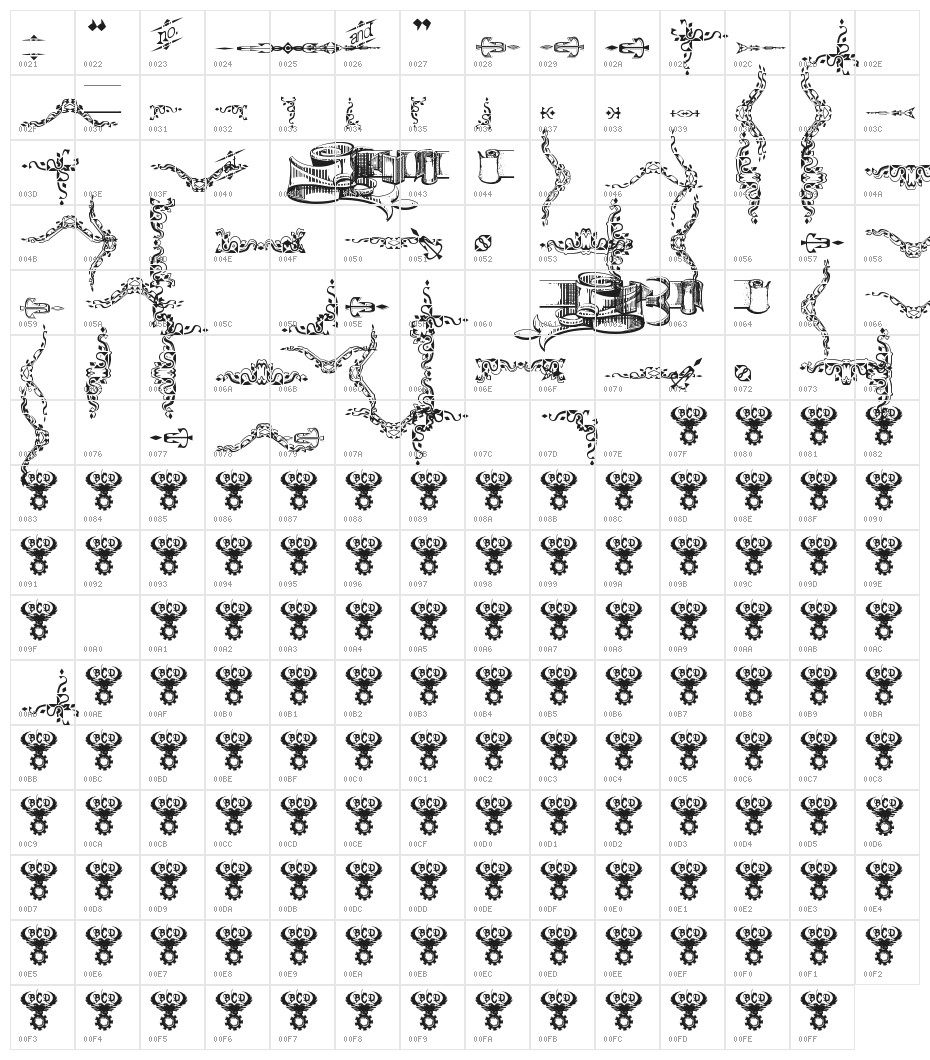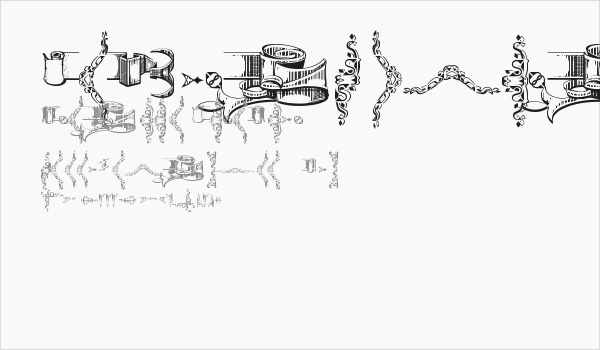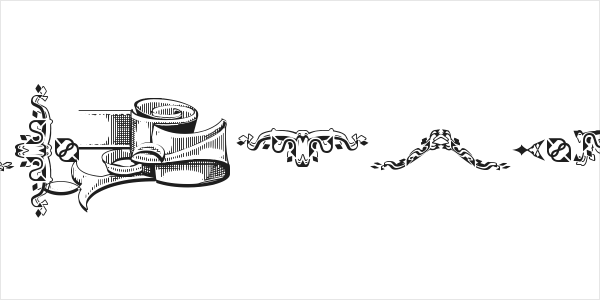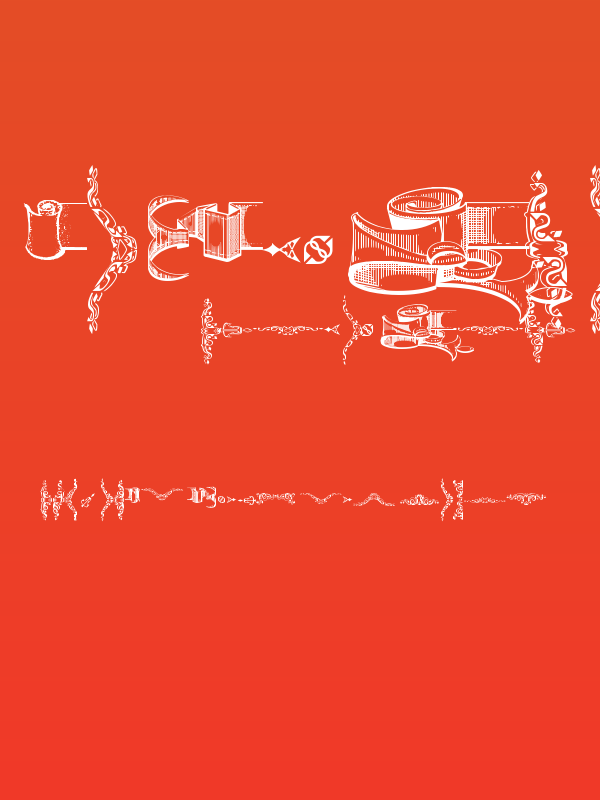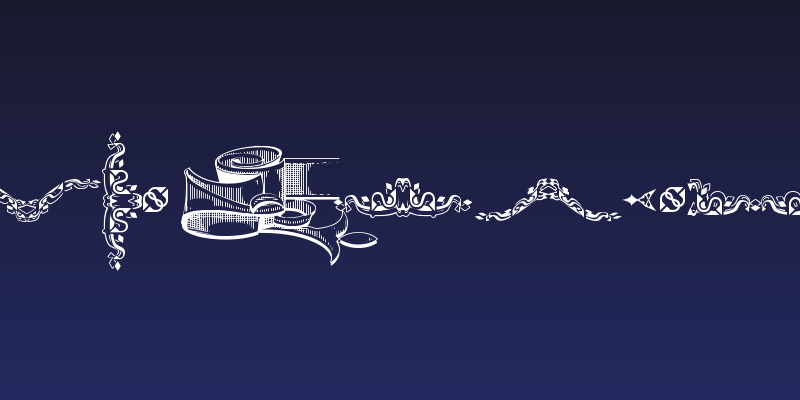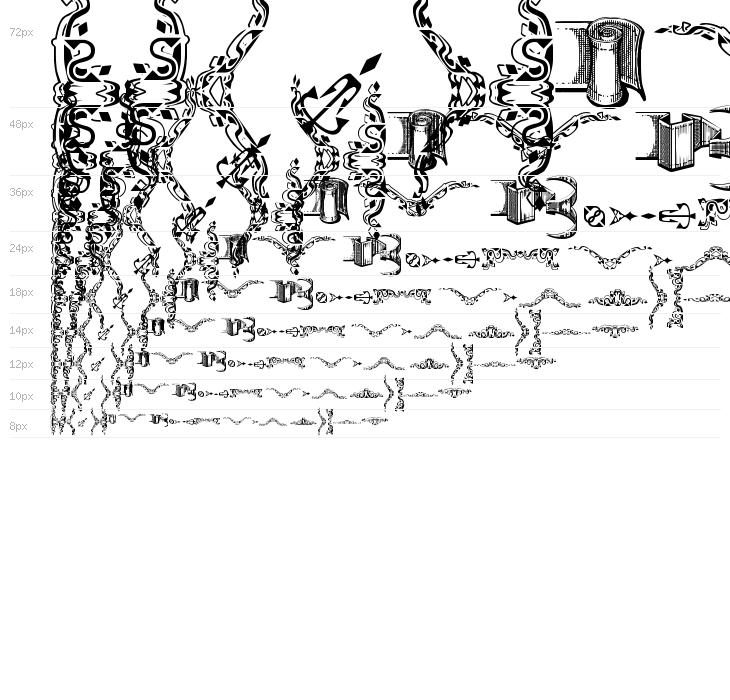
Deborah Extras/Ornaments Font
Deborah Extras/Ornaments Description
This collection features a variety of intricate and decorative ornaments, showcasing a blend of vintage and classic styles. The elements include ornate flourishes, borders, and embellishments that are highly detailed and artistically crafted. These designs are reminiscent of traditional engraving techniques, with a focus on symmetry and elegance. The ornaments are perfect for adding a touch of sophistication and historical charm to any project. The intricate patterns and curves are designed to capture attention and enhance the visual appeal of any layout.
| Use Case | Decorative elements |
| Proposed Projects | Ideal for use in invitations, certificates, book covers, and decorative borders. |